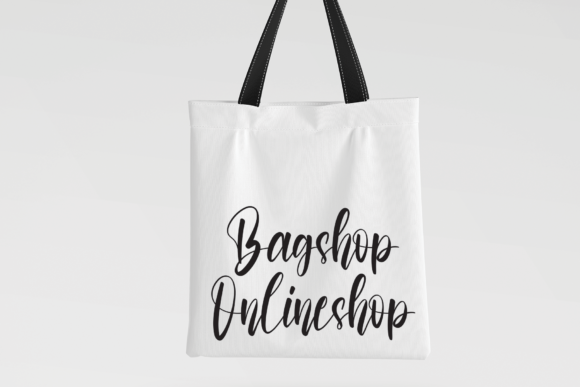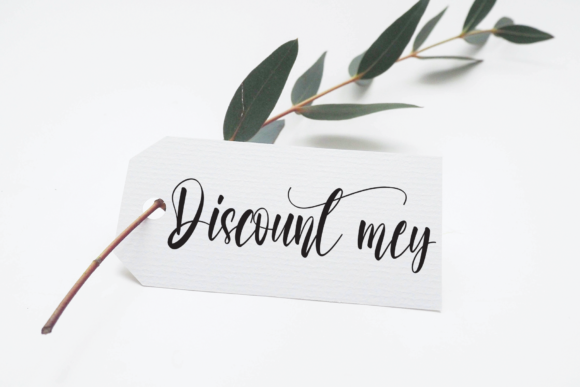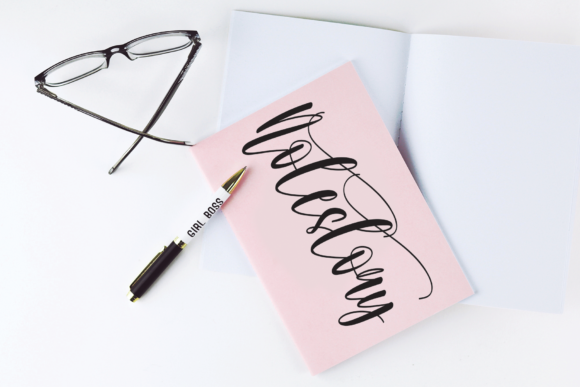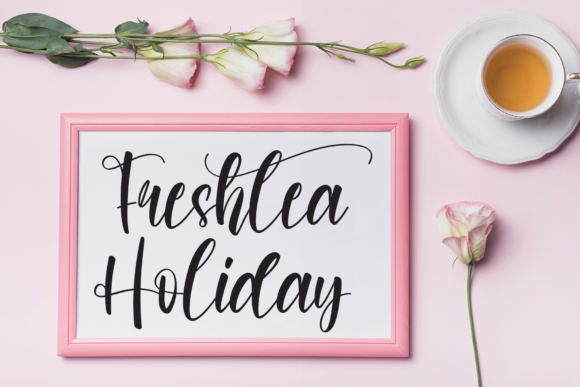
The Perfect Touch: Beautiful Signature Font
Do you remember the moment when you first discovered your passion for design? For me, it was creating a handmade card for my best friend’s birthday. The hours spent crafting the perfect message, the delicate curves of the letters, and the joy of seeing her smile when she received it. That feeling of bringing something beautiful into the world is what drives designers to create stunning visual identities.
When it comes to creating a lasting impression, Beautiful Signature Font is a timeless choice. This lovely handwritten font is perfect for logos, branding, and quotes that need a personal touch. With its unique and beautiful strokes, it brings any design to life. Whether you’re a seasoned designer or just starting out, Beautiful Signature Font is a valuable addition to your toolkit.
Beautiful Signature Font Key Features
- Font Styles: Comes in a range of elegant and modern styles, including cursive, script, and handwritten fonts.
- Unique Characteristics: Includes unique flourishes and swashes to add a personal touch to signatures.
Designer Review: Beautiful Signature Font
Overall, I’d say the Beautiful Signature Font is a solid choice for personal or business use. Here’s what I liked about it: ✨
- Unique and elegant design that makes it perfect for signature cards or personal stationery.
- Highly legible, making it great for printing.
However, I did encounter a few limitations: ⚠️
- No bold or italic font styles available.
- Can be difficult to pair with other fonts due to its unique style.
- Not suitable for digital use, such as social media or websites, due to its low resolution.
In conclusion, while the Beautiful Signature Font has its limitations, it’s a great choice for those looking for a high-quality, elegant font for personal or business use. Just be aware of its limitations and use it accordingly.
Alternatives to “Beautiful Signature Font” for Designers
Great Vibes is a modern script font that is perfect for creating a friendly and approachable signature. It’s great for designers who want to add a touch of elegance to their work without being too formal. Compared to Beautiful Signature Font, Great Vibes has a more casual feel and is ideal for younger audiences.
Carolyna Pro is a elegant script font that is perfect for creating a sophisticated and stylish signature. It’s great for designers who want to add a touch of luxury to their work. Compared to Beautiful Signature Font, Carolyna Pro has a more refined and polished look, making it ideal for high-end brands and corporate designs.
Alex Brush is a beautiful script font that is perfect for creating a personal and handwritten signature. It’s great for designers who want to add a touch of warmth and personality to their work. Compared to Beautiful Signature Font, Alex Brush has a more organic and natural feel, making it ideal for designers who want to create a unique and memorable signature.
Lobster is a fun and playful script font that is perfect for creating a bold and eye-catching signature. It’s great for designers who want to add a touch of whimsy and fun to their work. Compared to Beautiful Signature Font, Lobster has a more dramatic and attention-grabbing feel, making it ideal for designers who want to create a statement signature.